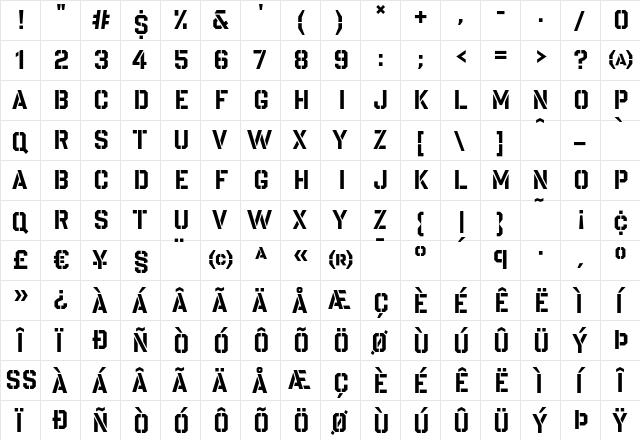
GiantLayers Regular
Design Context for GiantLayers Typeface
GiantLayers takes a measured approach to typography — its balanced proportions and neutral character make it a reliable workhorse for both digital and print work.